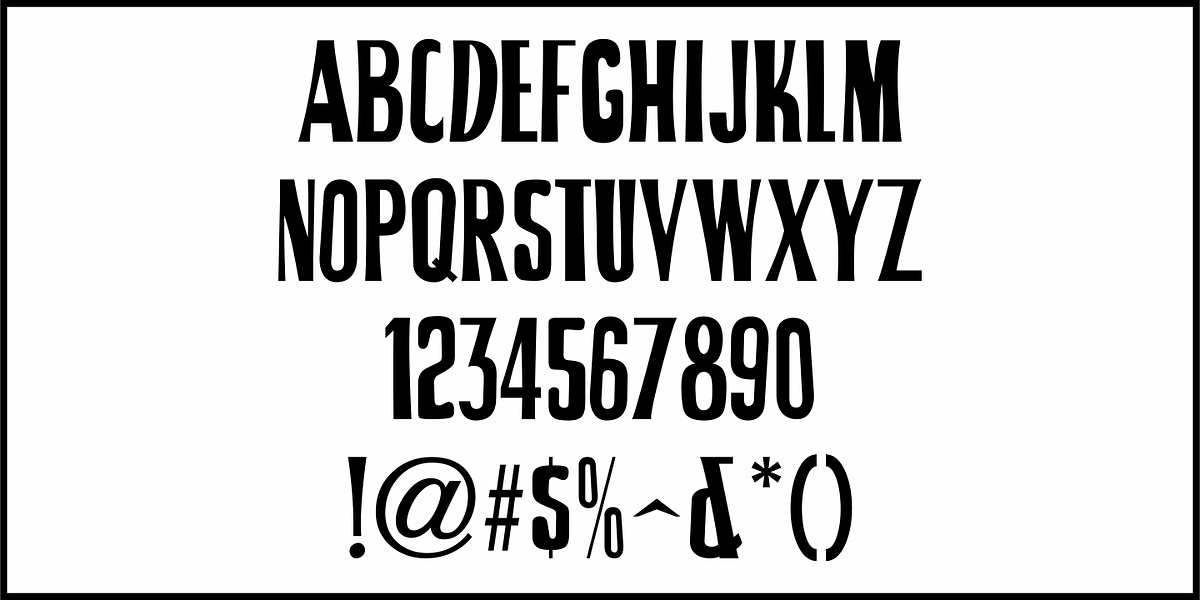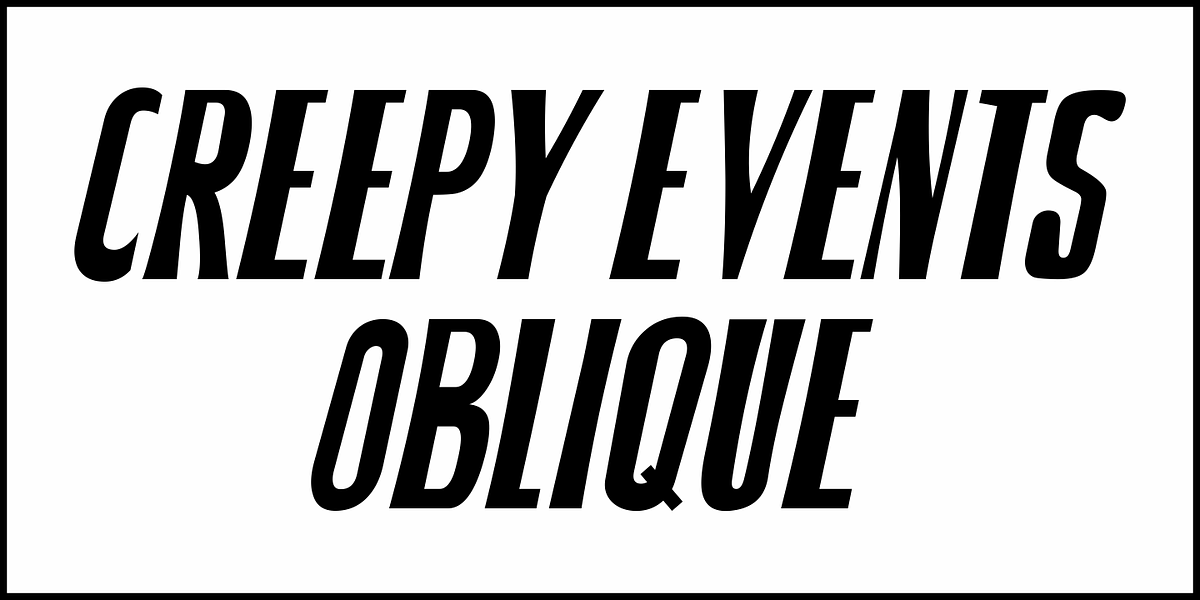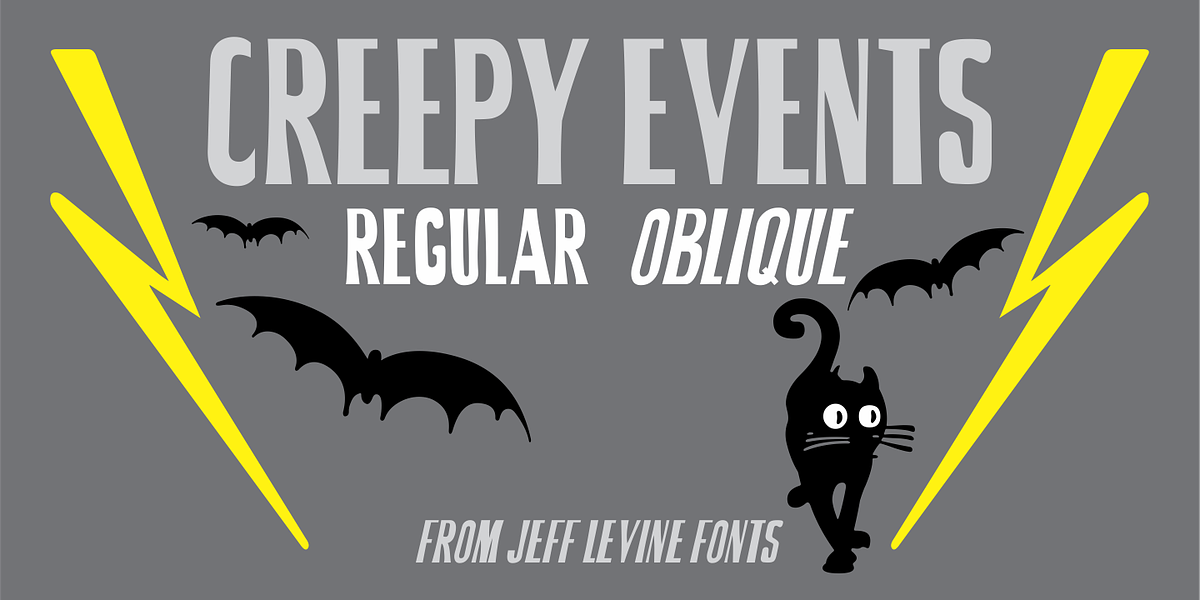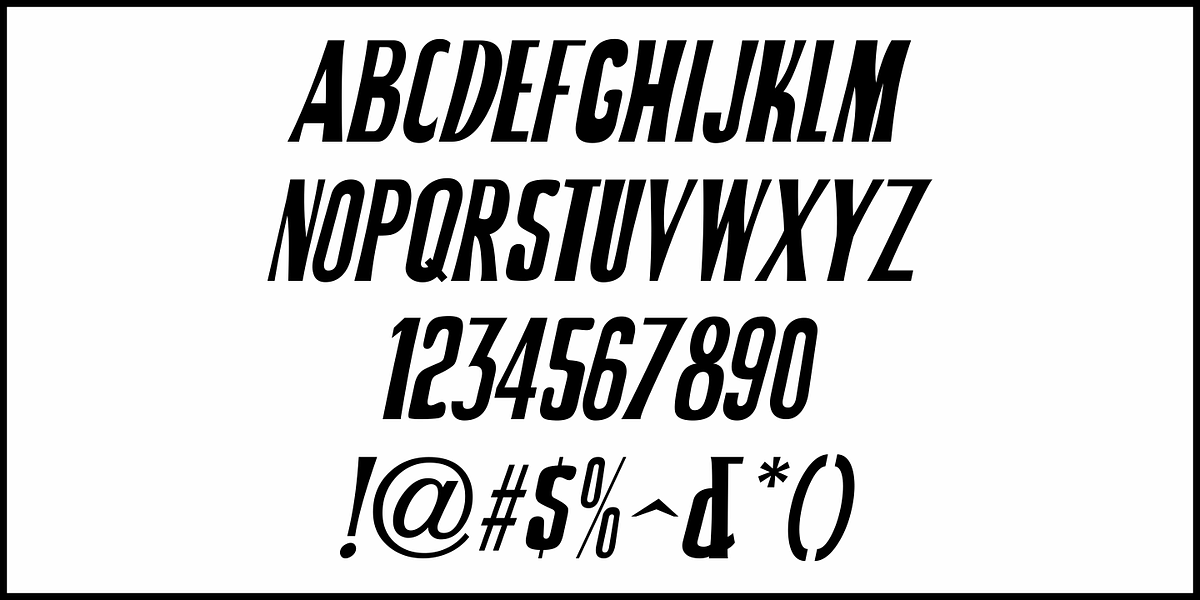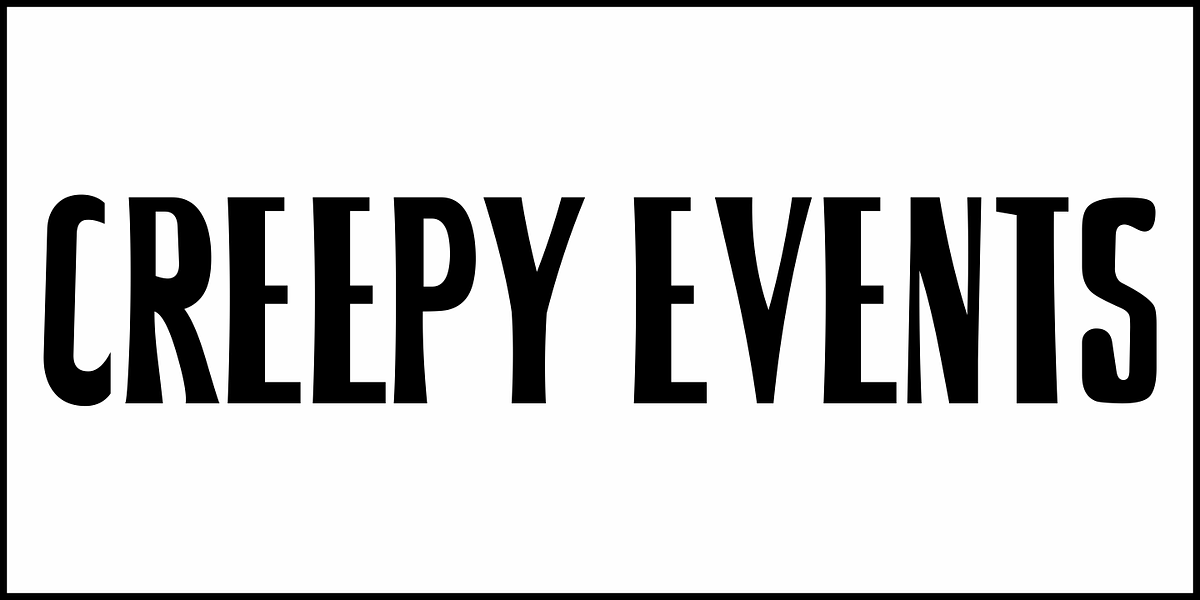
Creepy Events JNL
The 1963 German release poster for “What Ever Happened to Baby Jane?” features a creepy, sinister, hand lettered type design that became the model for Creepy Events JNL – available in both regular and oblique versions.